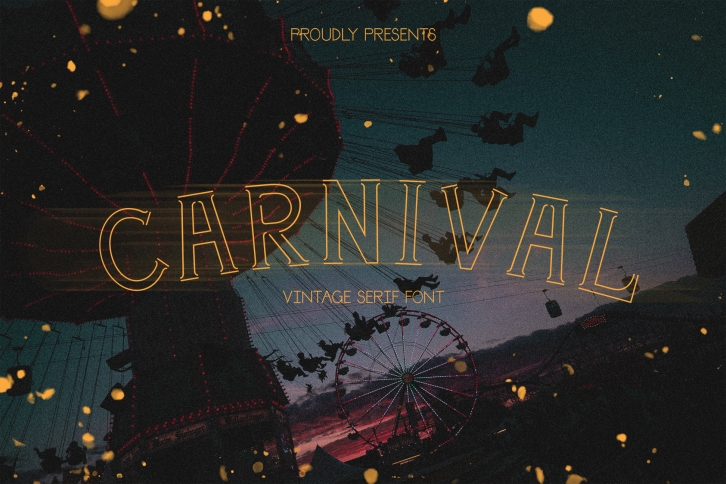
Carnival | a festival serif FONT Download
Carnival is a trendy and unique font with an authentic style. It was designed by whitesupply and it's a great choice for creative people who need such a font. It was released on January 4, 2020 and the file size is 17.75 MB. Carnival will add an organic vibe to any design idea!